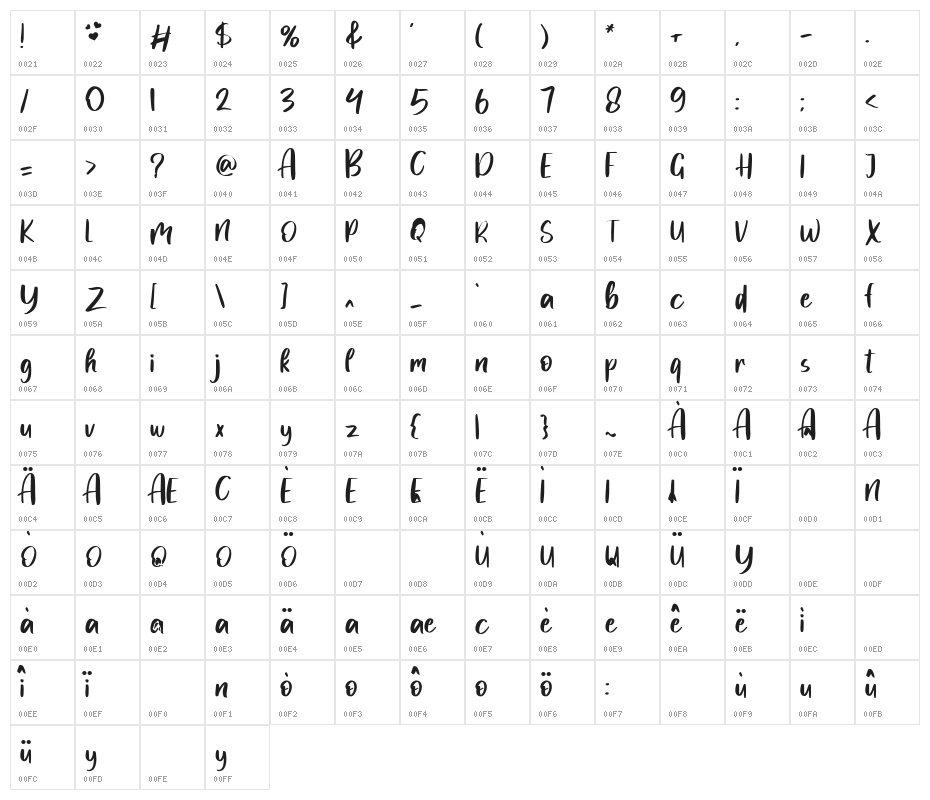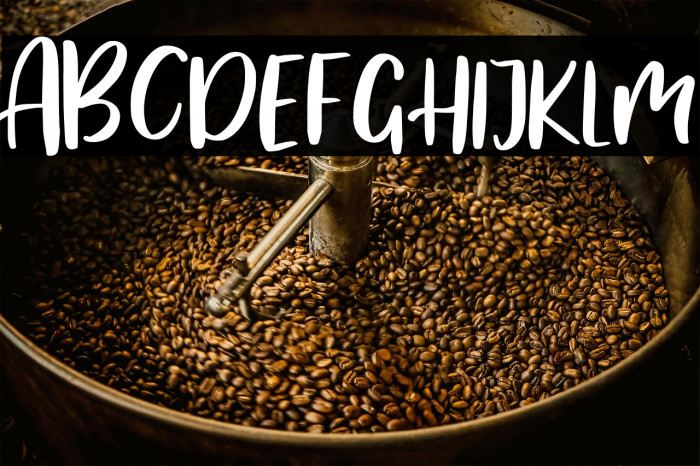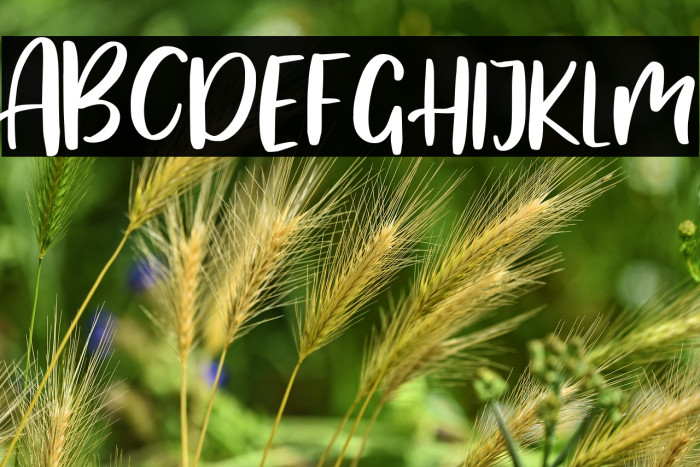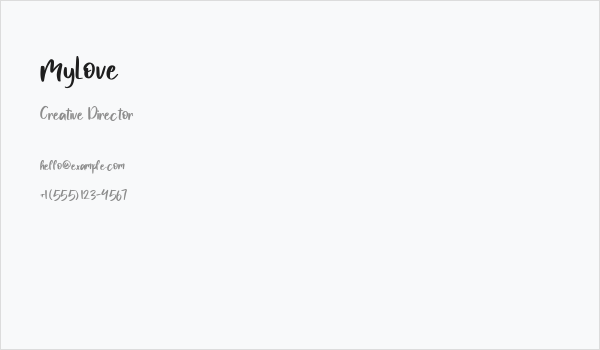
MyLove Font
MyLove Description
This font exudes a playful and energetic vibe, characterized by its bold and flowing script style. The letters are crafted with a brush-like appearance, giving them a hand-drawn feel. The uppercase letters are tall and slightly condensed, while the lowercase letters maintain a consistent flow with rounded edges. Numbers and special characters follow the same lively style, ensuring a cohesive look across all text. The overall design is informal yet stylish, making it perfect for creative and expressive projects.
| Proposed Projects | Ideal for greeting cards, social media graphics, branding for creative businesses, and event invitations. |